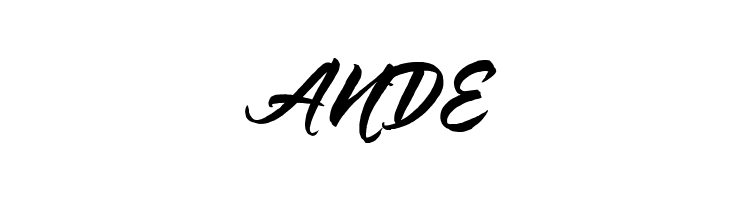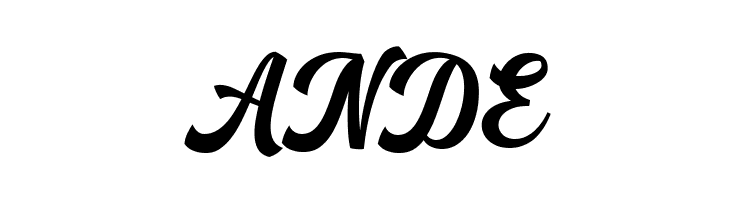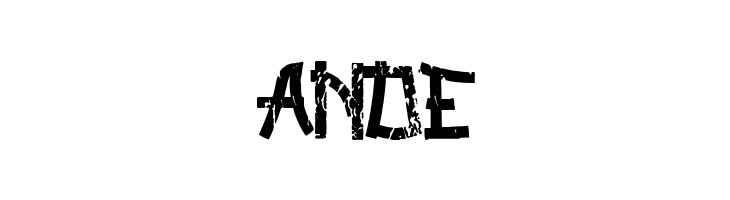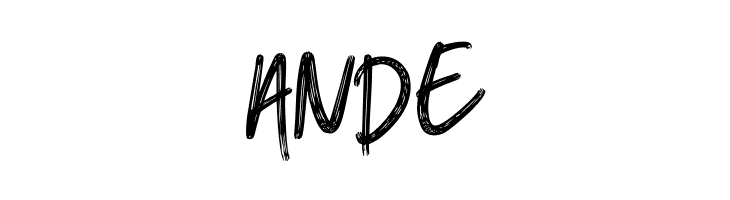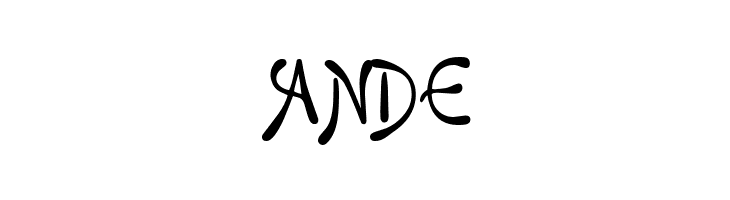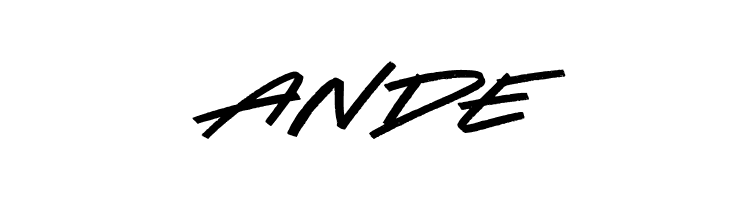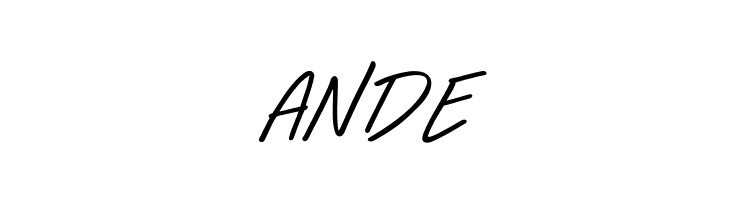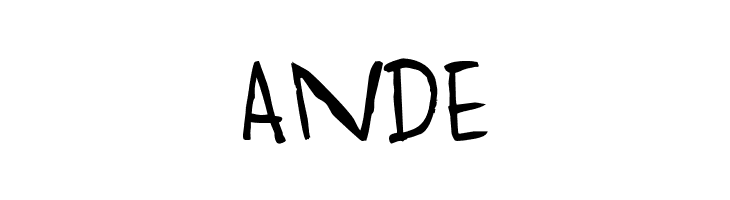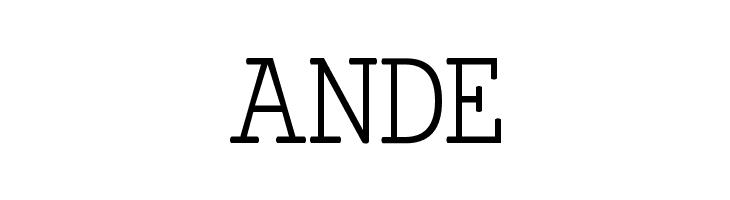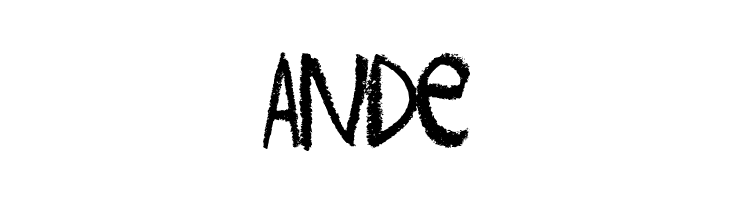
A bold, textured script font with a dynamic, handcrafted feel.
A decorative font with elegant swashes and calligraphic flourishes.
A bold, playful handwritten font with smooth curves and a casual vibe.
A spooky, dripping font perfect for Halloween themes.
A playful, handwritten font with a casual and approachable style.
A playful, handwritten font with tall, narrow letters and a casual style.
A bold, hand-drawn font with a playful and irregular style.
A playful, handwritten font with tall, narrow letters and a casual style.
A playful, handwritten font with tall, narrow characters and uneven strokes.
A bold, playful handwritten font with a casual and friendly style.
A playful, handwritten font with rounded, consistent strokes and a casual feel.
A decorative font featuring hand shadow puppets for a playful and creative touch.
A bold, geometric stencil font with a modern, industrial feel.
A playful, whimsical handwritten font with dynamic strokes and irregular shapes.
A casual, handwritten font with smooth curves and a friendly appearance.
A handcrafted, artistic font with uneven strokes and a playful style.
A casual, handwritten font with a playful and informal style.
A bold, handwritten font with dynamic and expressive strokes.
A bold, handwritten font with a casual and dynamic style.
A playful, handwritten font with rounded, uniform strokes and a casual style.
A decorative font featuring hand tools as characters, perfect for DIY-themed projects.
A bold, textured handwritten font with a playful and energetic style.
A dynamic brush script font with fluid, expressive strokes.
A playful, handwritten font with fluid and organic strokes.